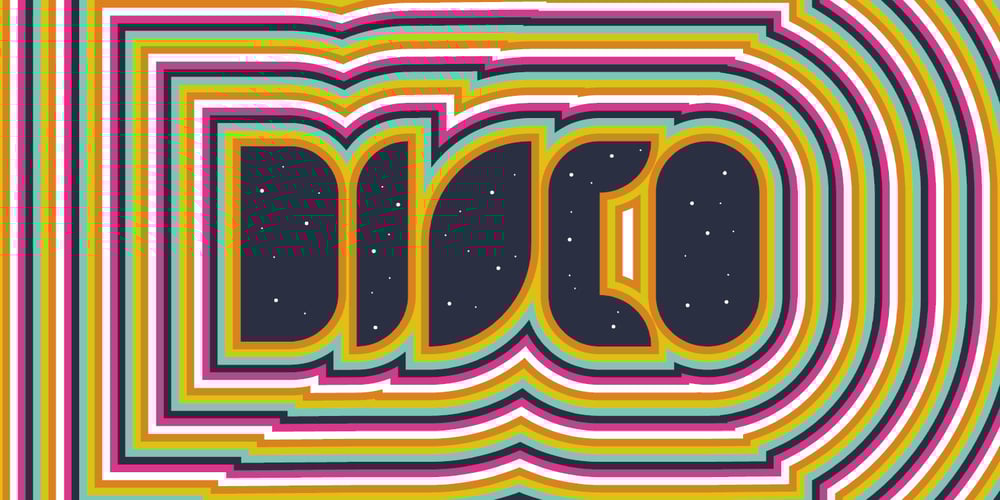
Disco Display Font Family was designed by Carlos Nombela and published by Cabeza Dura. Disco Display contains 1 styles and family package options. Composed of compositional groups, with optical adjustments in the curves, Disco Display has been designed with special attention to kerning and tracking, allowing its use in both large and medium sizes, starring in large titles or filling entire covers with color.Inspired by the hippie movement, Disco Display provides sensuality, visual richness and compositional splendor, giving rise to the use of multiple colors or patterns in its forms, or rediscovering its counterforms.